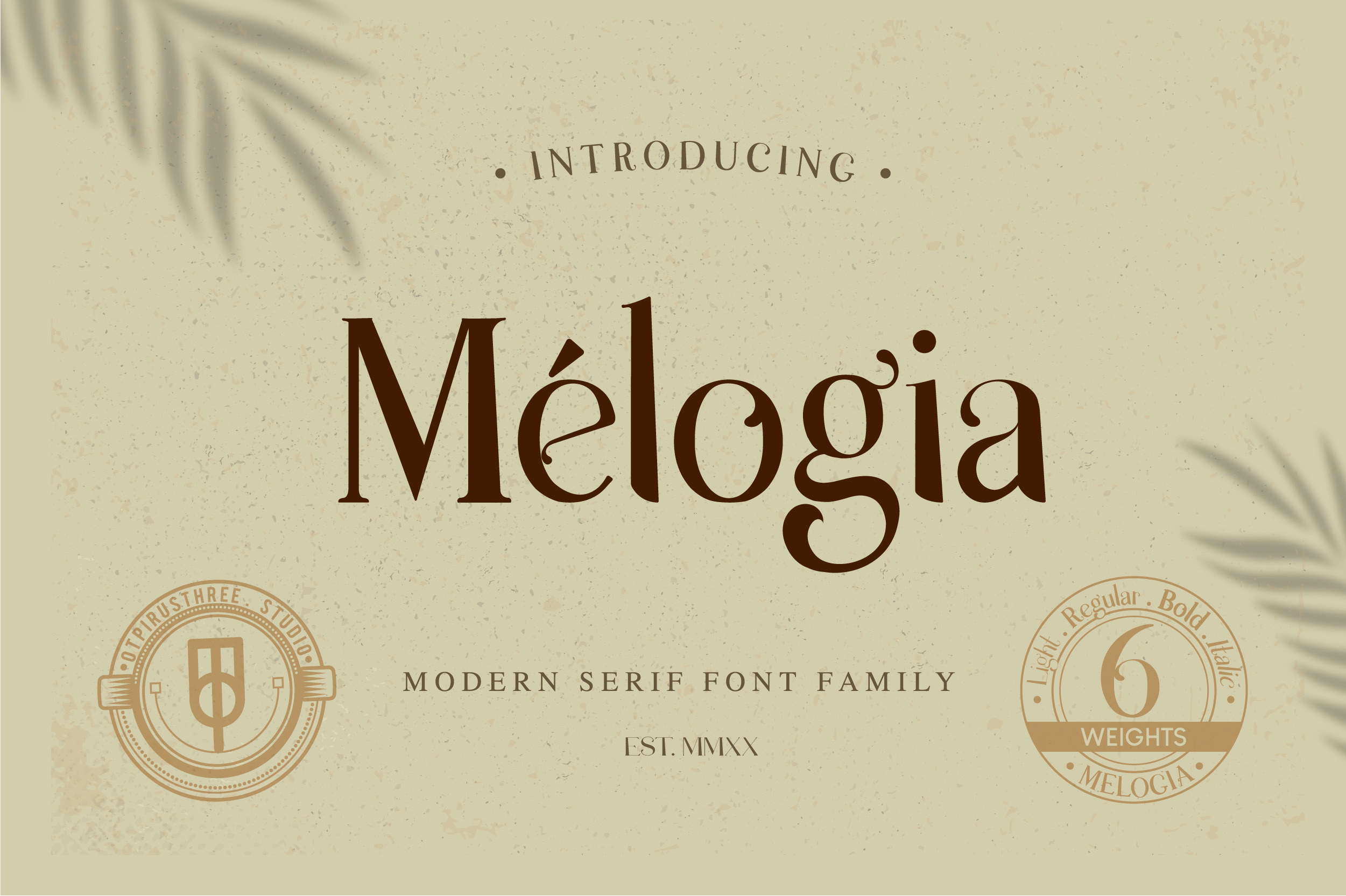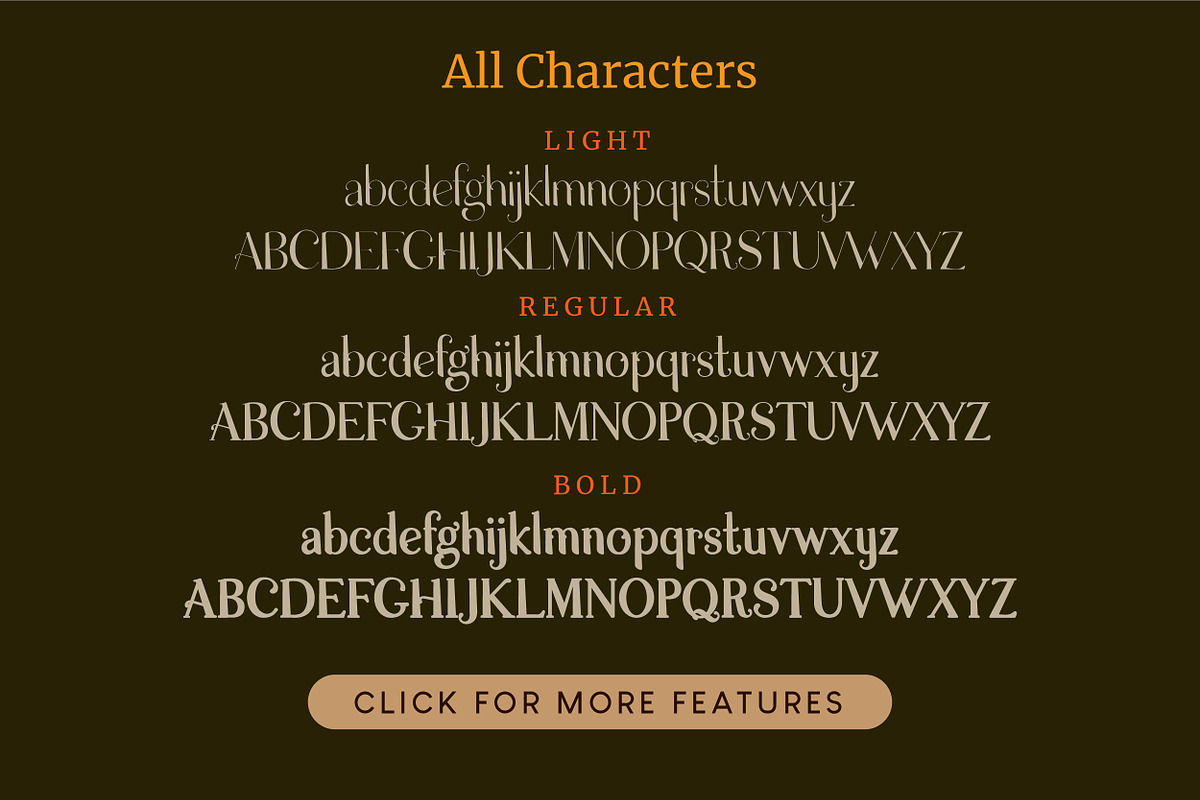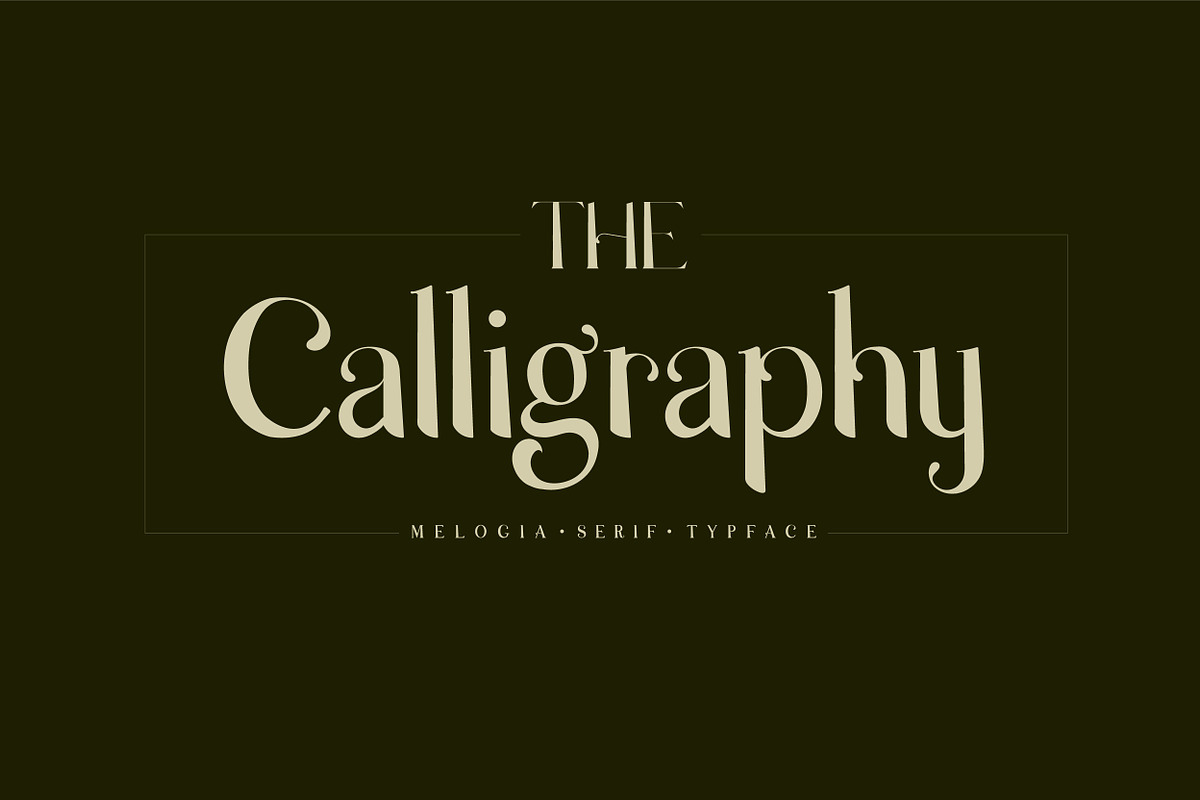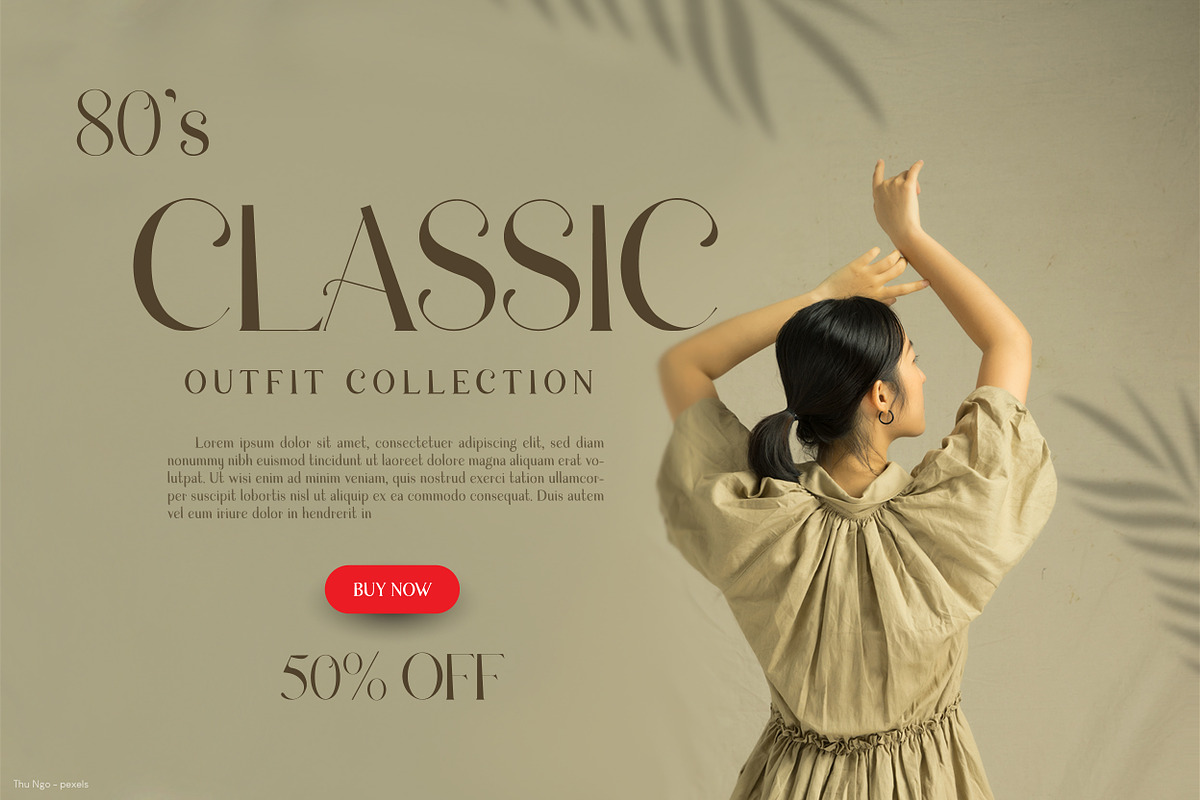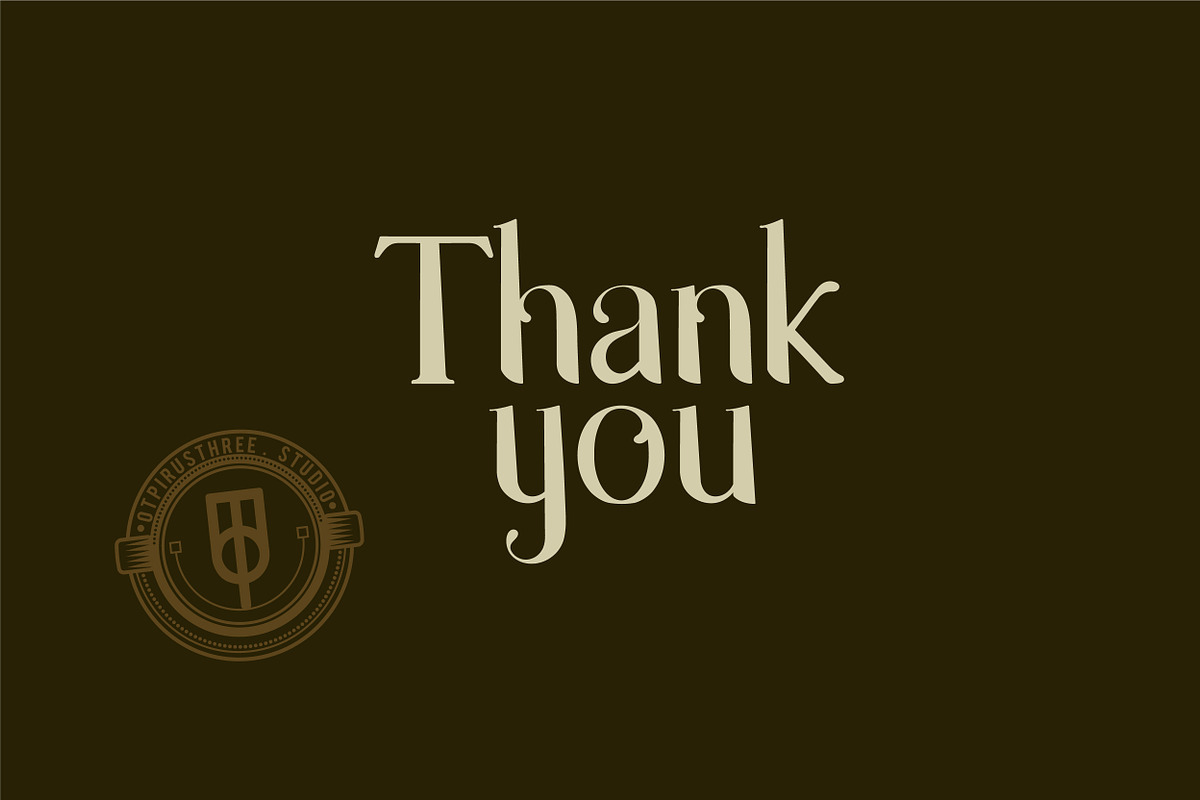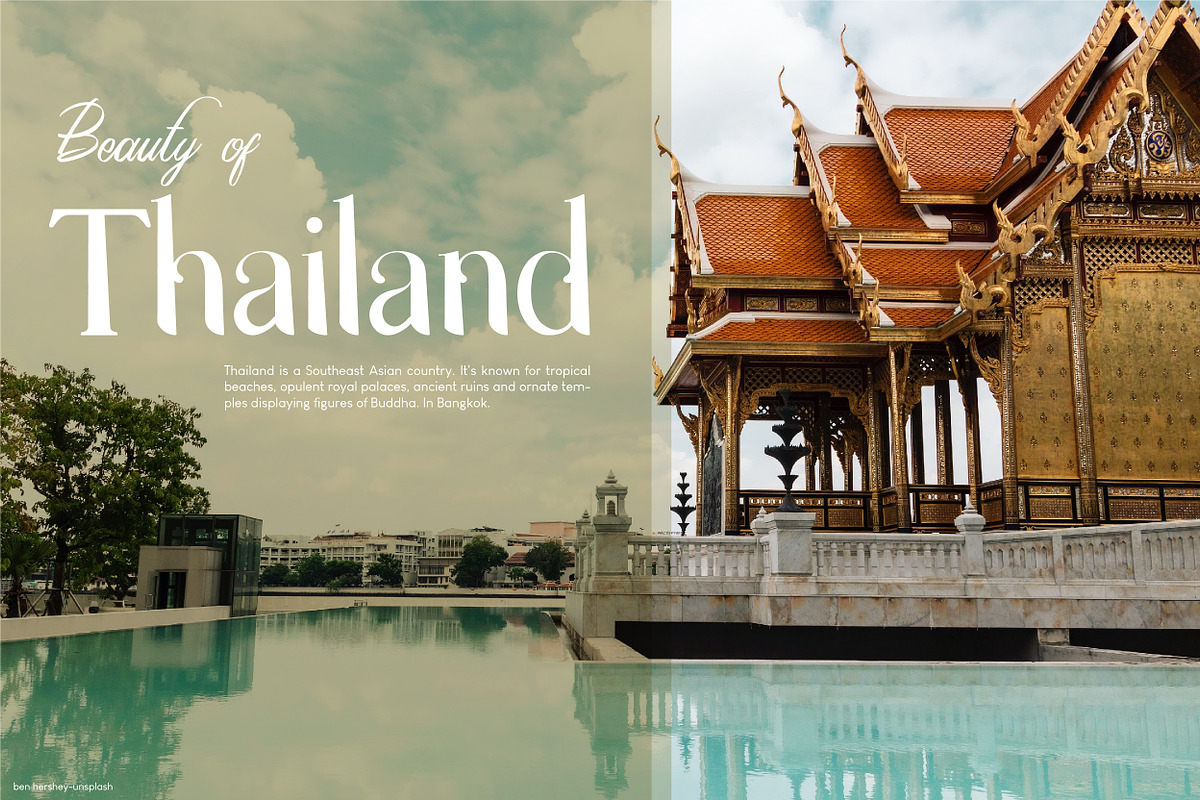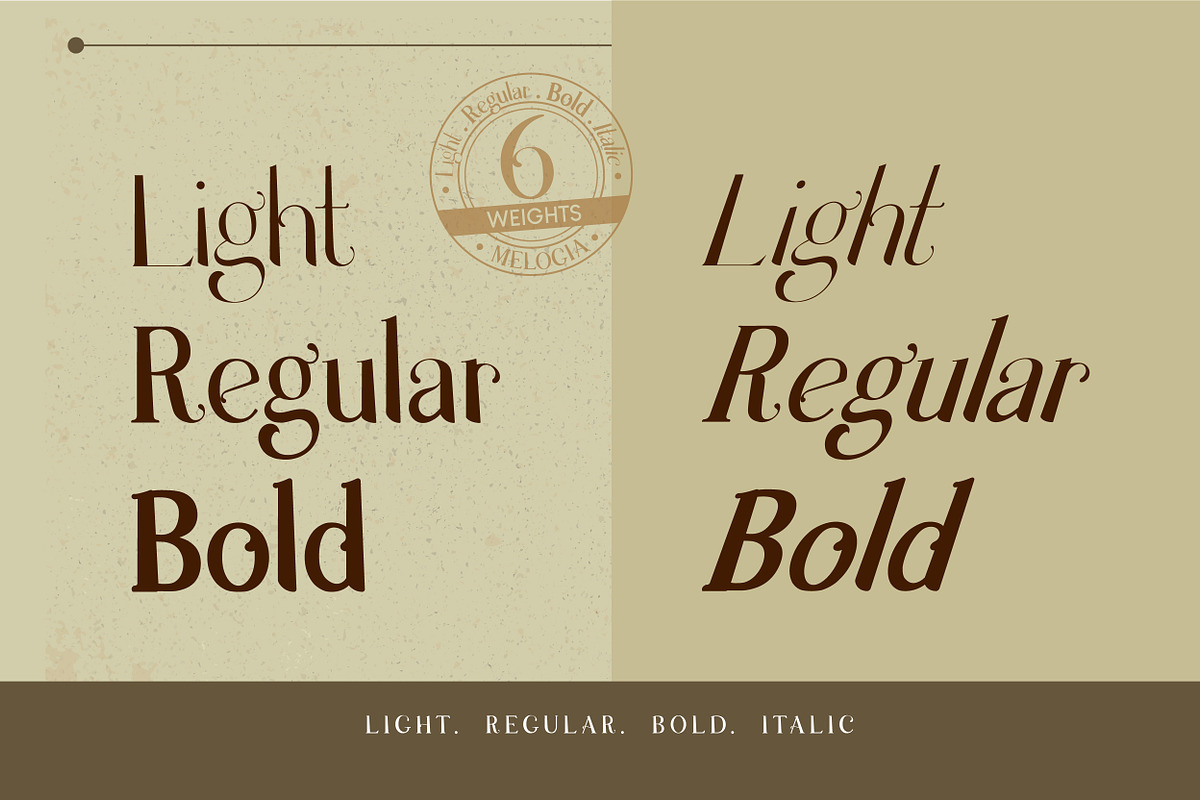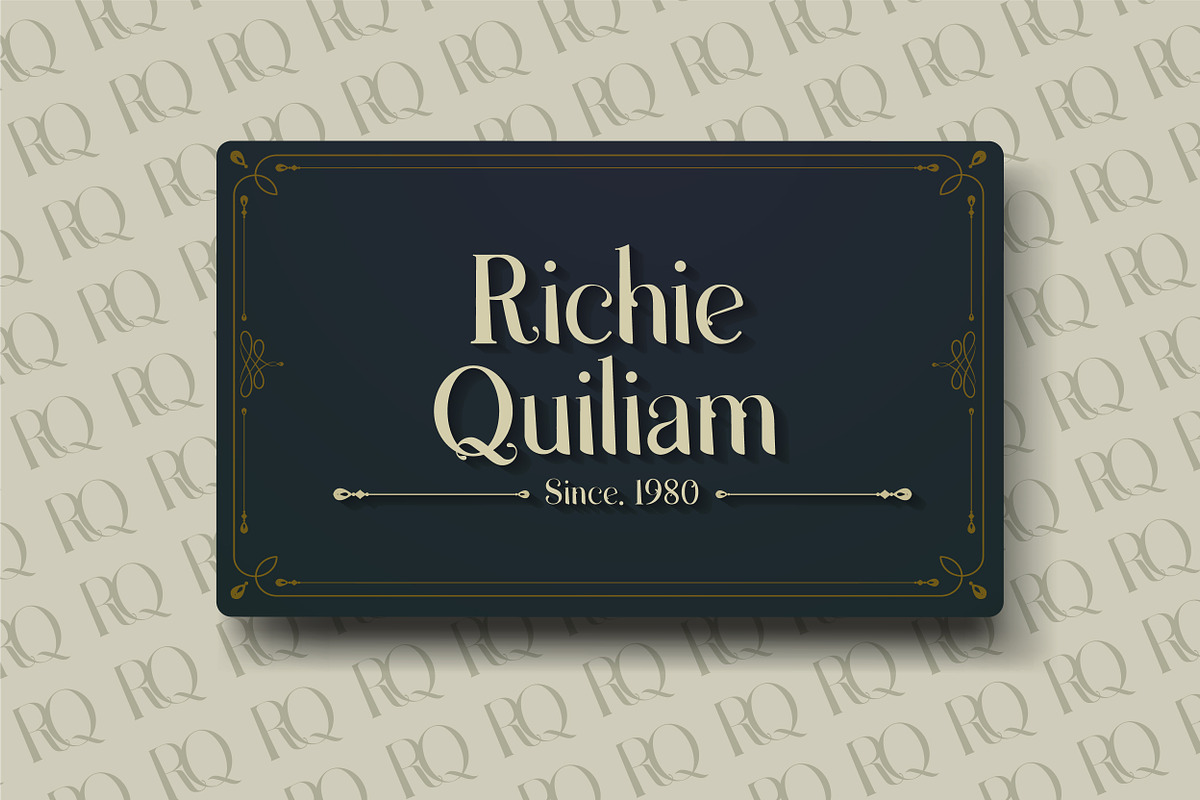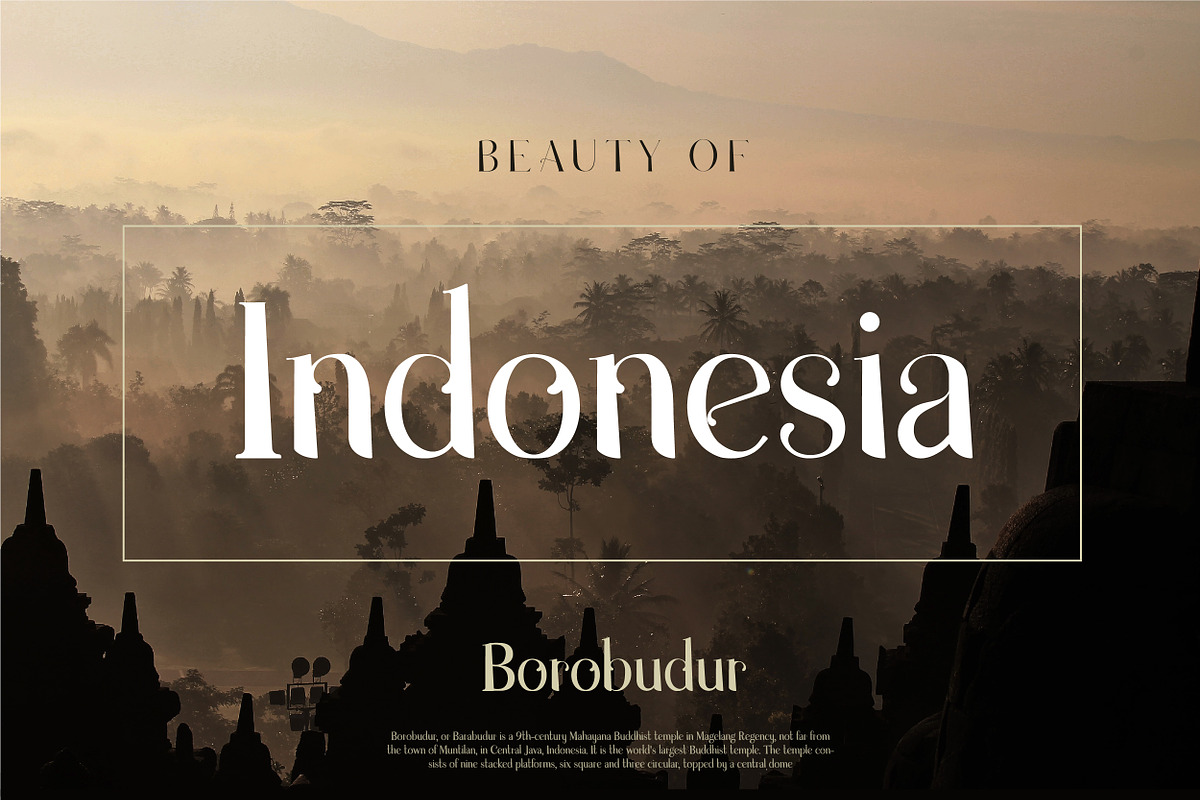
Melogia - Modern Serif Font Family
Melogia is a serif font family, elegant and modern, also suitable for vintage design with 6 weights. It's a very versatile font that works great in large and small sizes. Perfect for branding projects, Logo design, Clothing Branding, magazines, books, greeting / wedding cards, fashion, make up, stationery, novels, labels or any type of advertising purpose, or simply as a stylish text overlay to any background image.
- Numbers and Punctuation
available in three sizes and three types ready to choose according to your needs. This is a serif font with a modern style, so it's perfect for a variety of design needs